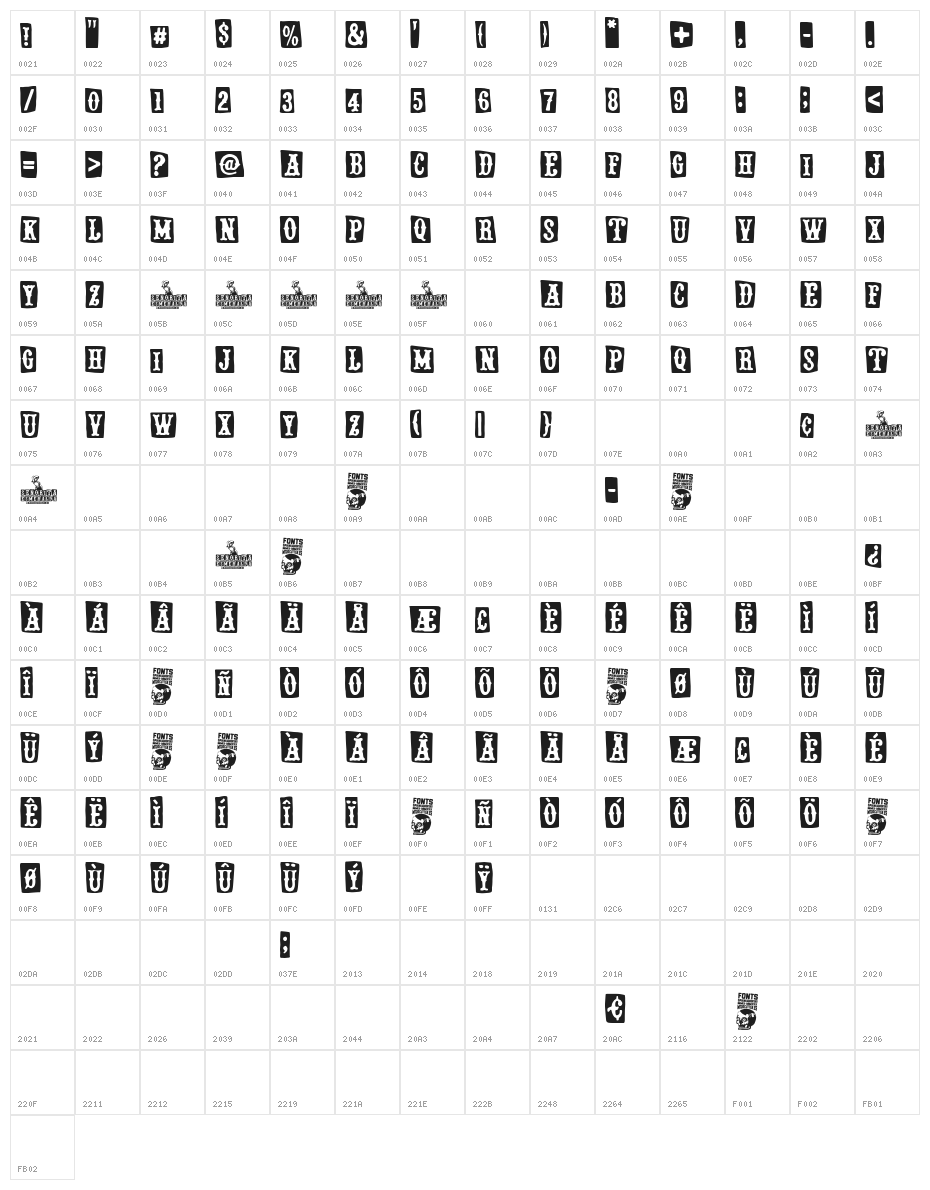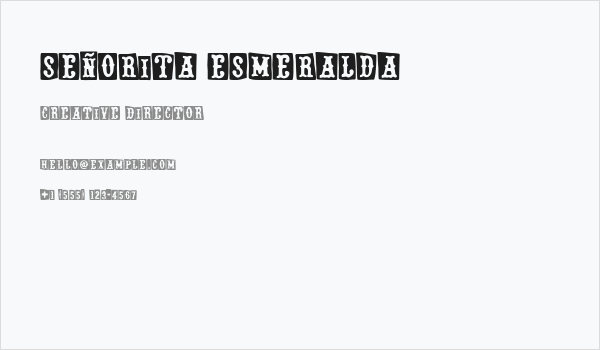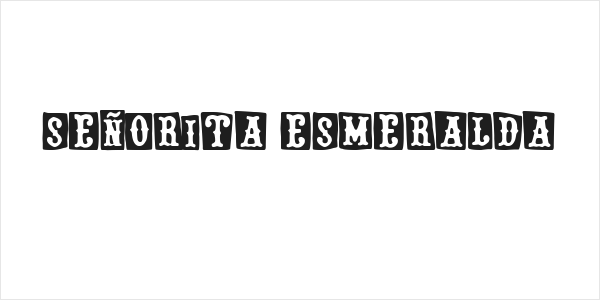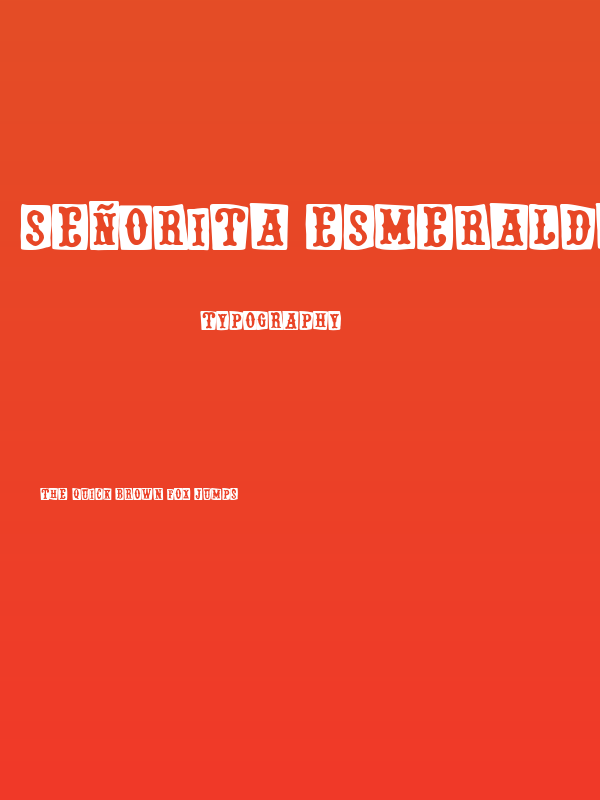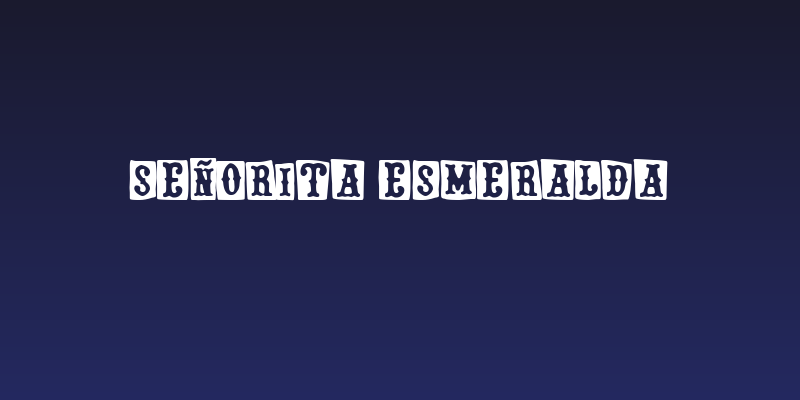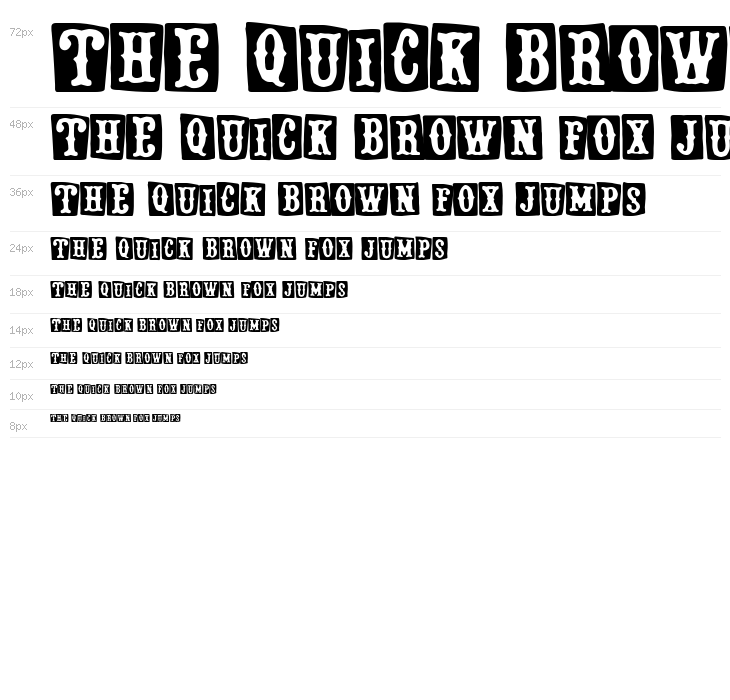
Señorita Esmeralda Font
Señorita Esmeralda Description
This font features a bold and playful design with a distinctly decorative style. Each character is enclosed in a black rectangular block, creating a striking contrast with the white, ornate letters. The font has a whimsical, almost theatrical appearance, with exaggerated serifs and unique flourishes that give it a lively personality. The uppercase and lowercase letters maintain a consistent style, while the numbers and special characters follow the same bold and decorative theme. The overall look is reminiscent of vintage poster fonts, making it ideal for eye-catching designs.
| Proposed Projects | This font is perfect for projects that require a bold statement, such as posters, flyers, event invitations, and branding materials that aim to capture attention with a vintage flair. |